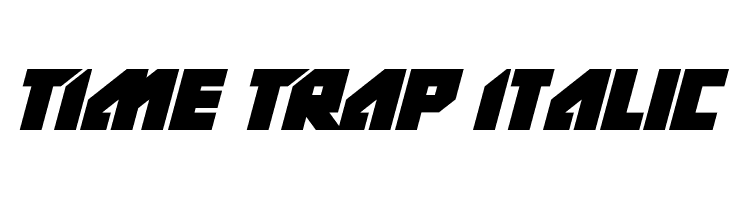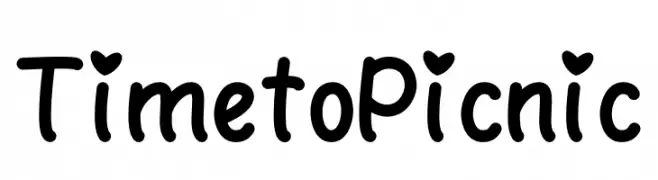
A futuristic, geometric font with clean lines and angular shapes.
A decorative collection of timepiece illustrations featuring various clocks and watches.
A decorative and intricate font with bold, embellished characters.
A bold, brush-like font with dynamic and expressive strokes.
A playful, rounded font with a whimsical and fun style.
A bold, scribble-textured font with a hand-drawn, artistic style.
A bold, geometric font with sharp angles and a futuristic style.
A bold, angular, and dynamic font with a futuristic style.